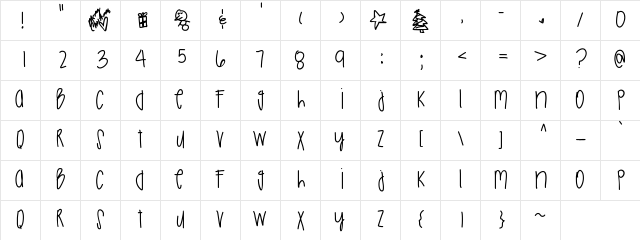
ChristmasSeason Medium
Design Context for ChristmasSeason Typeface
ChristmasSeason is a composed and adaptable typeface that performs quietly and consistently across a wide range of design contexts.